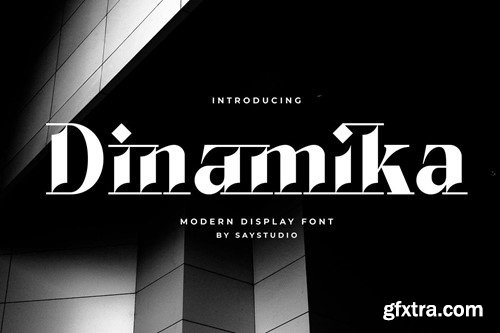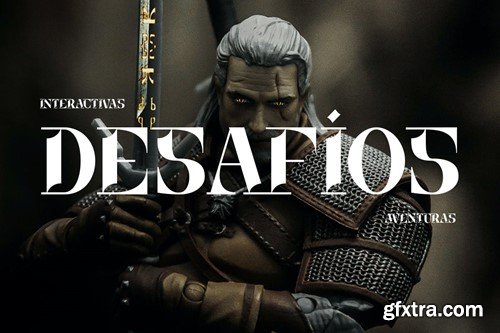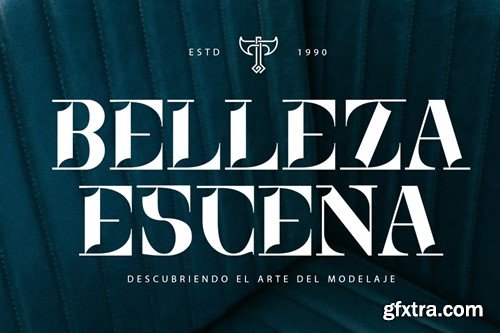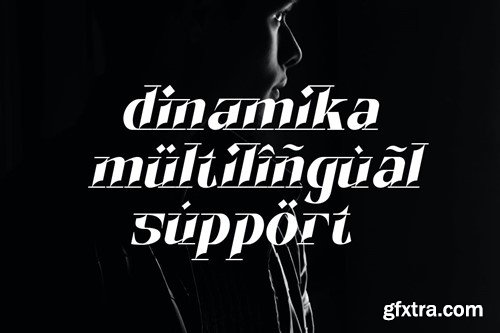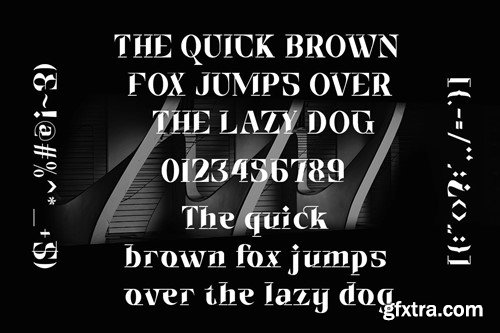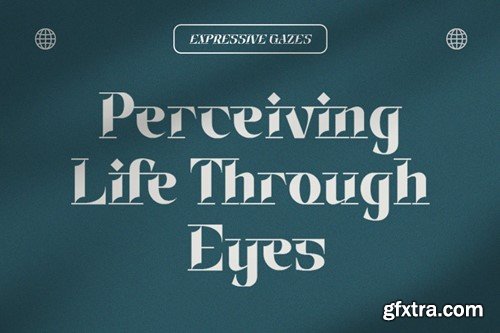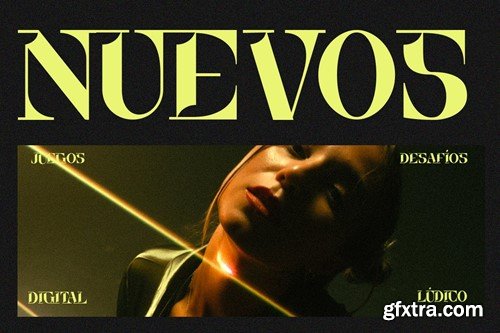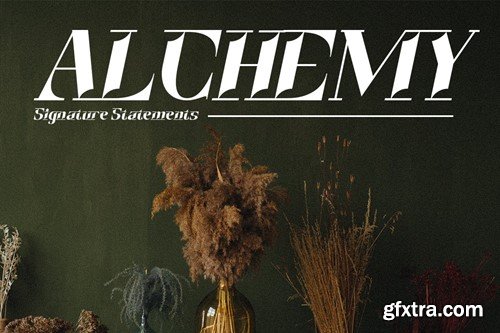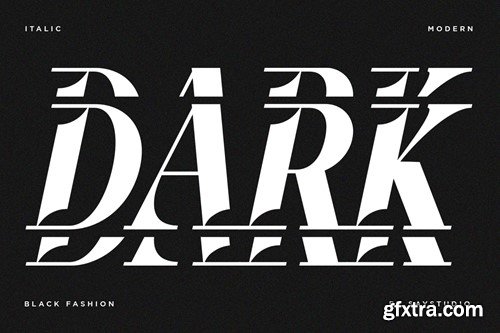
Dinamika - Modern Luxury Font
Dinamika comes in a Modern Display Serif Typeface style featuring italic version and ligatures making it easy to adapt to your design. An elegant typeface, Dinamika is perfect for corporate identities, websites, publications, titles, books, magazines, business cards, logos, product labels, packaging, or any kind of advertising purpose. Thanks, Have a wonderful Day, Pandeka Studio